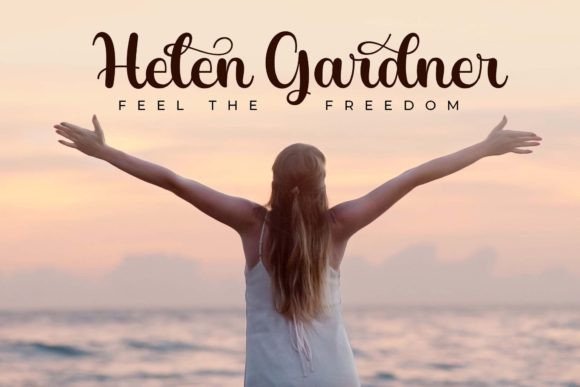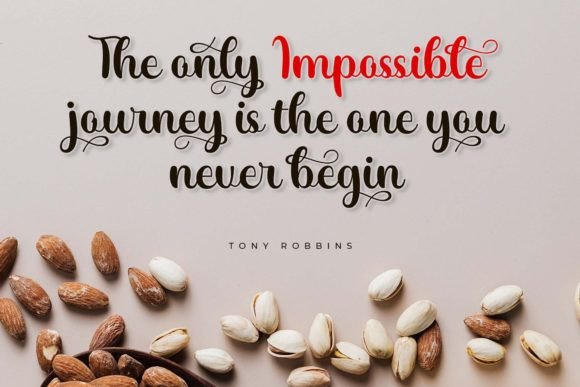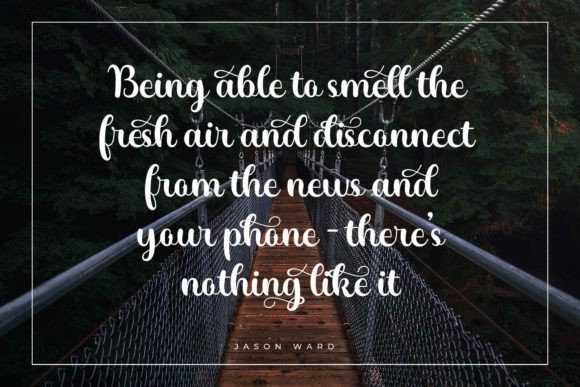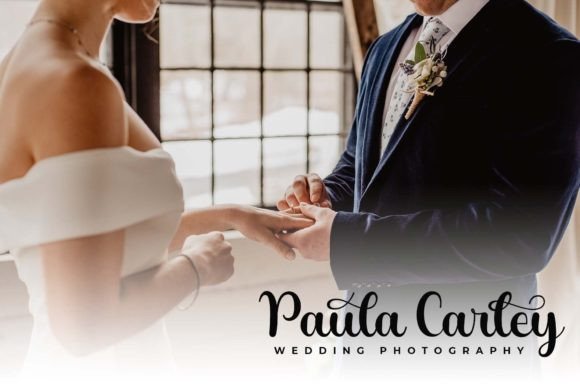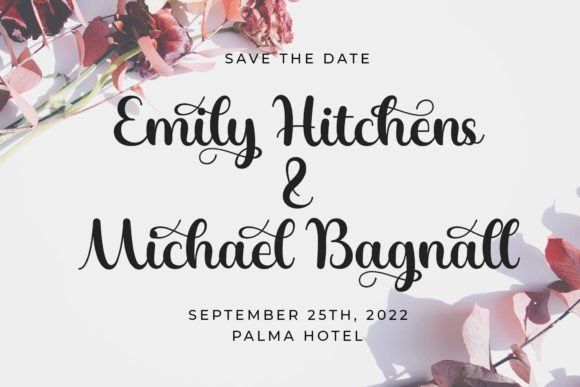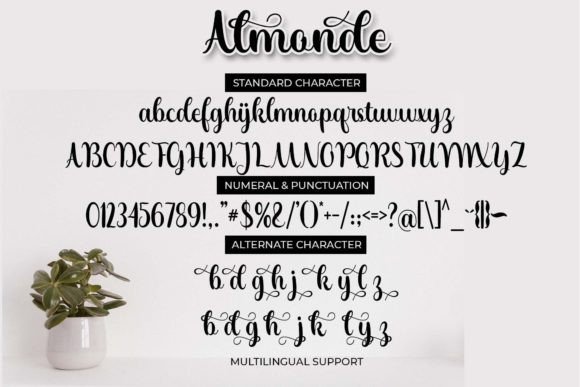
Introducing Almonde Font: The Perfect Blend of Romance and Elegance
Are you a designer or crafter looking for a font that can add a touch of romance and sweetness to your design artwork? Look no further than Almonde Font, a beautiful calligraphy typeface that is sure to capture your heart. In this article, we’ll take a closer look at what makes Almonde Font so special and why it’s a must-have for any creative project.
What is Almonde Font?
Almonde Font is a romantic and sweet calligraphy typeface that features characters that dance along the baseline, giving it a casual yet elegant touch. This font is perfect for designers and crafters who want to add a personal and whimsical touch to their work. Whether you’re creating wedding invitations, greeting cards, or social media graphics, Almonde Font is sure to make your design stand out.
Key Features of Almonde Font
So, what makes Almonde Font so special? Here are just a few of its key features:
- Romantic and Sweet Design: Almonde Font has a romantic and sweet design that is perfect for any project that requires a touch of elegance and sophistication.
- Casual yet Elegant Touch: The font’s casual yet elegant touch makes it perfect for a wide range of design projects, from wedding invitations to social media graphics.
- PUA Encoded: Almonde Font is PUA encoded, which means you can access all of the glyphs and swashes with ease. This makes it easy to customize your design and add your own personal touch.
Why Choose Almonde Font?
So, why should you choose Almonde Font for your next design project? Here are just a few reasons:
- Unique and Eye-Catching Design: Almonde Font has a unique and eye-catching design that is sure to make your design stand out from the crowd.
- Versatile: The font is versatile and can be used for a wide range of design projects, from print to digital.
- Easy to Use: Almonde Font is easy to use and can be accessed with ease, thanks to its PUA encoding.
How to Use Almonde Font
Using Almonde Font is easy! Here are just a few tips to get you started:
- Pair it with Other Fonts: Almonde Font pairs well with other fonts, so feel free to experiment with different combinations to find the perfect look for your design.
- Experiment with Swashes and Glyphs: With its PUA encoding, Almonde Font gives you access to a range of swashes and glyphs that you can use to customize your design.
- Use it for a Variety of Projects: Almonde Font is versatile and can be used for a wide range of design projects, from wedding invitations to social media graphics.
In conclusion, Almonde Font is a beautiful and romantic calligraphy typeface that is perfect for designers and crafters who want to add a touch of elegance and sophistication to their design artwork. With its casual yet elegant touch, PUA encoding, and versatile design, Almonde Font is a must-have for any creative project. So why wait? Download Almonde Font today and start creating stunning designs that will capture your audience’s heart!